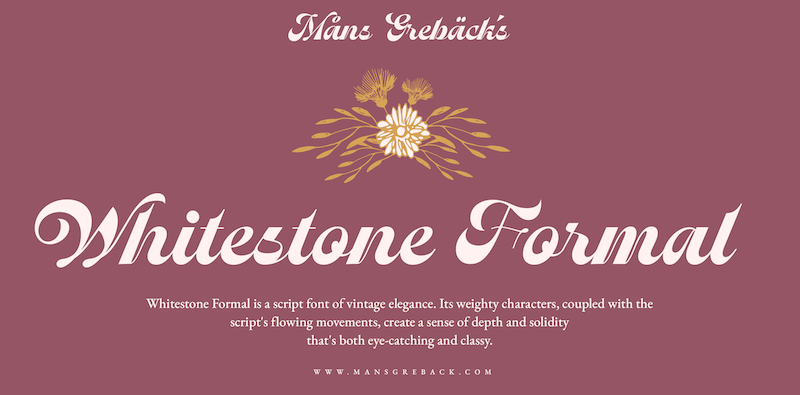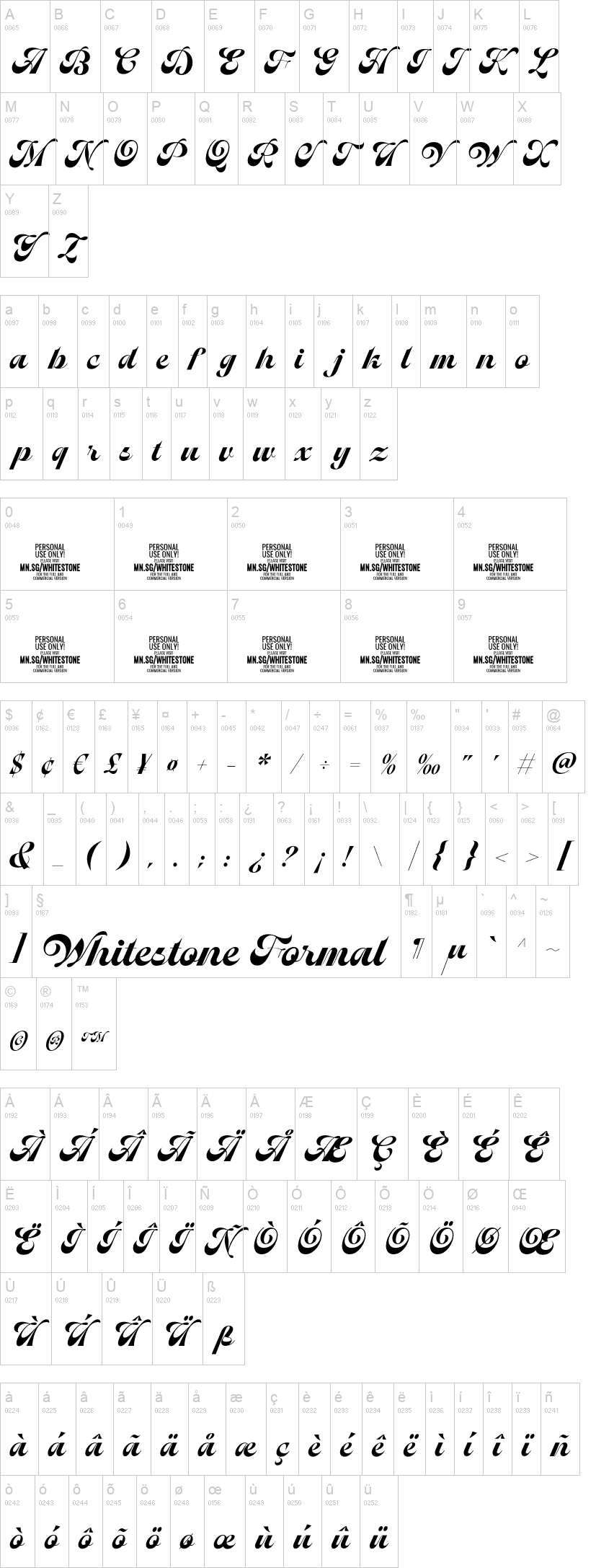
Whitestone Formal is a script font of vintage elegance.
Its weighty characters create a sense of depth and solidity that's both eye-catching and classy.